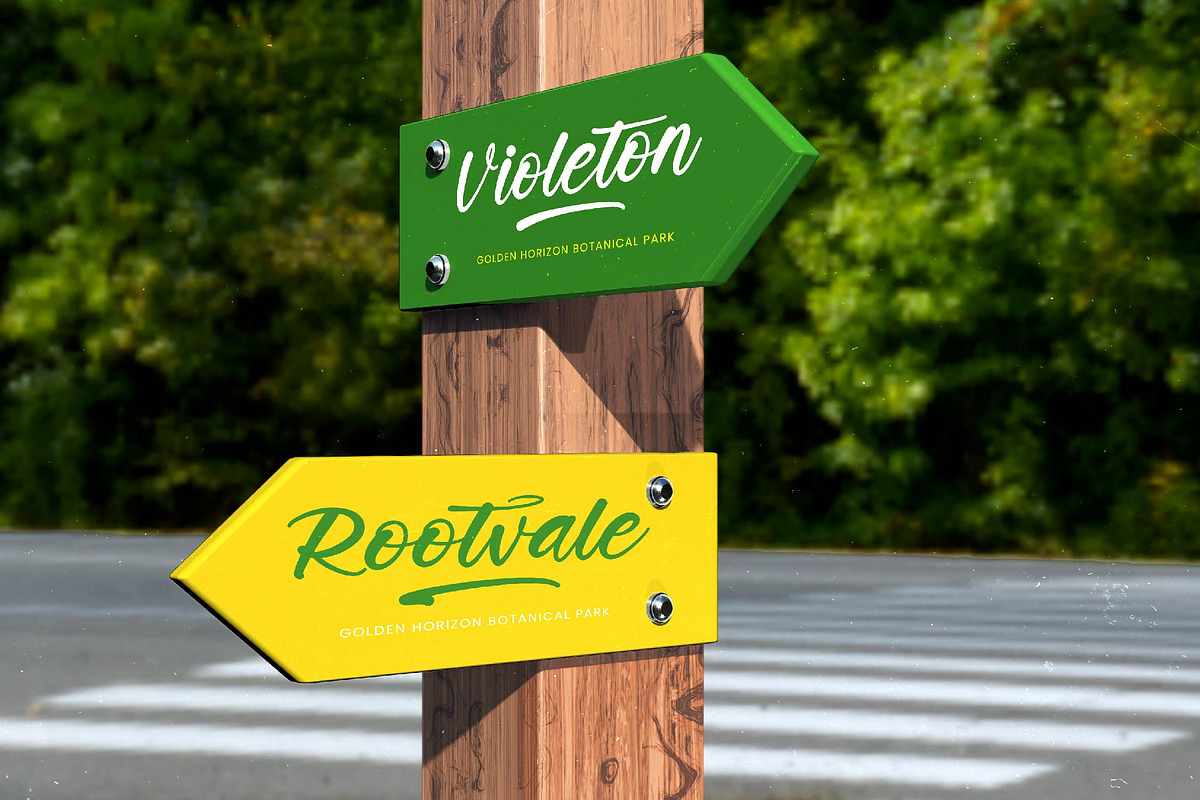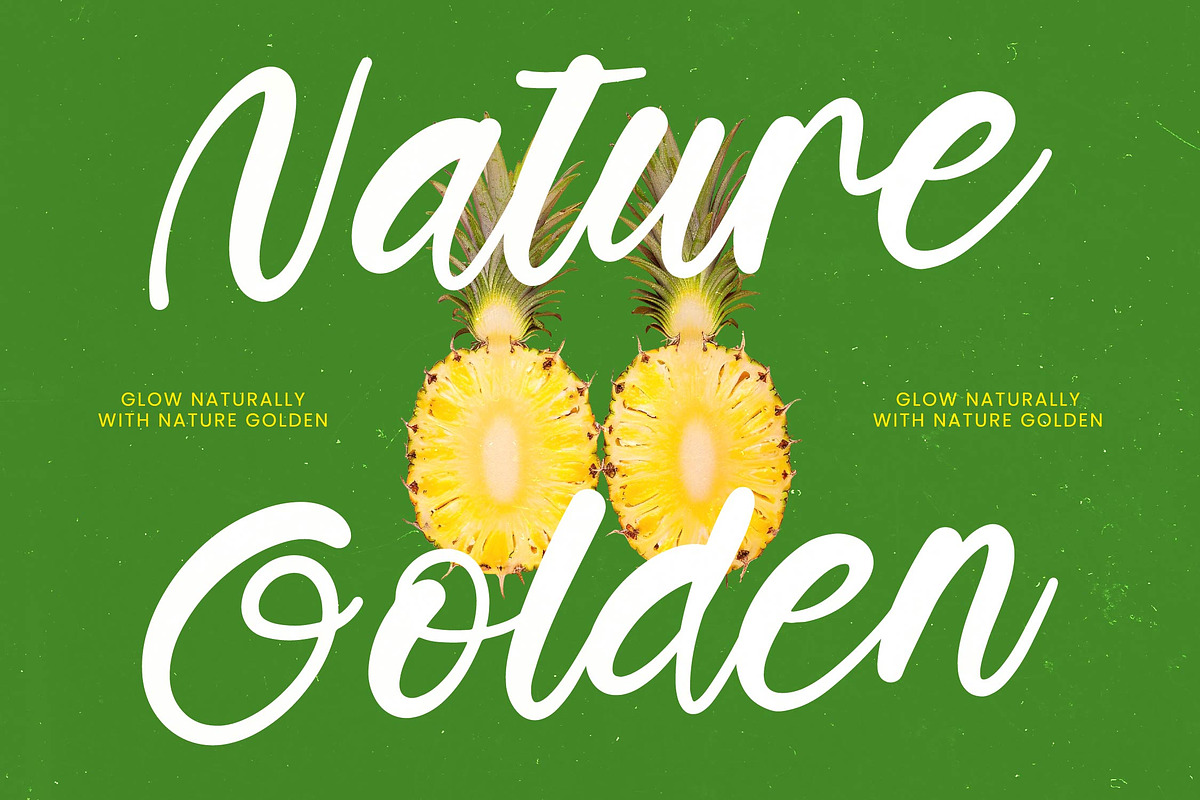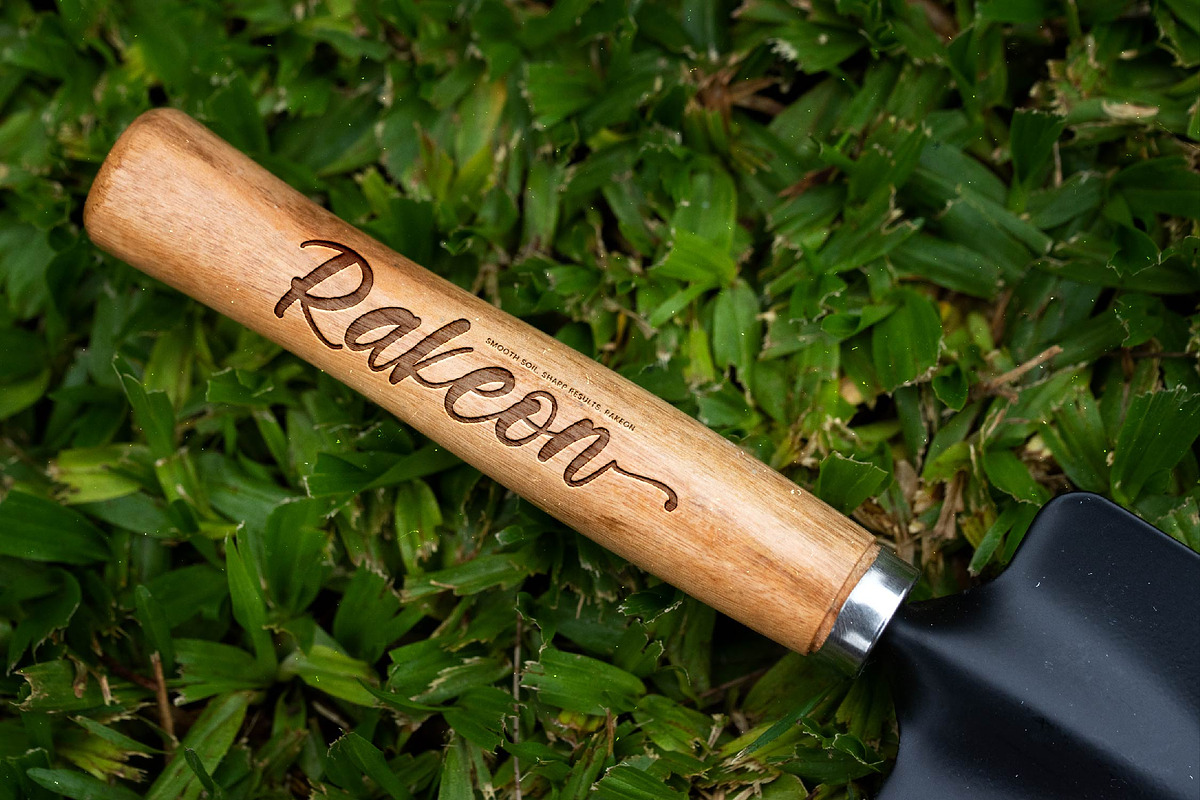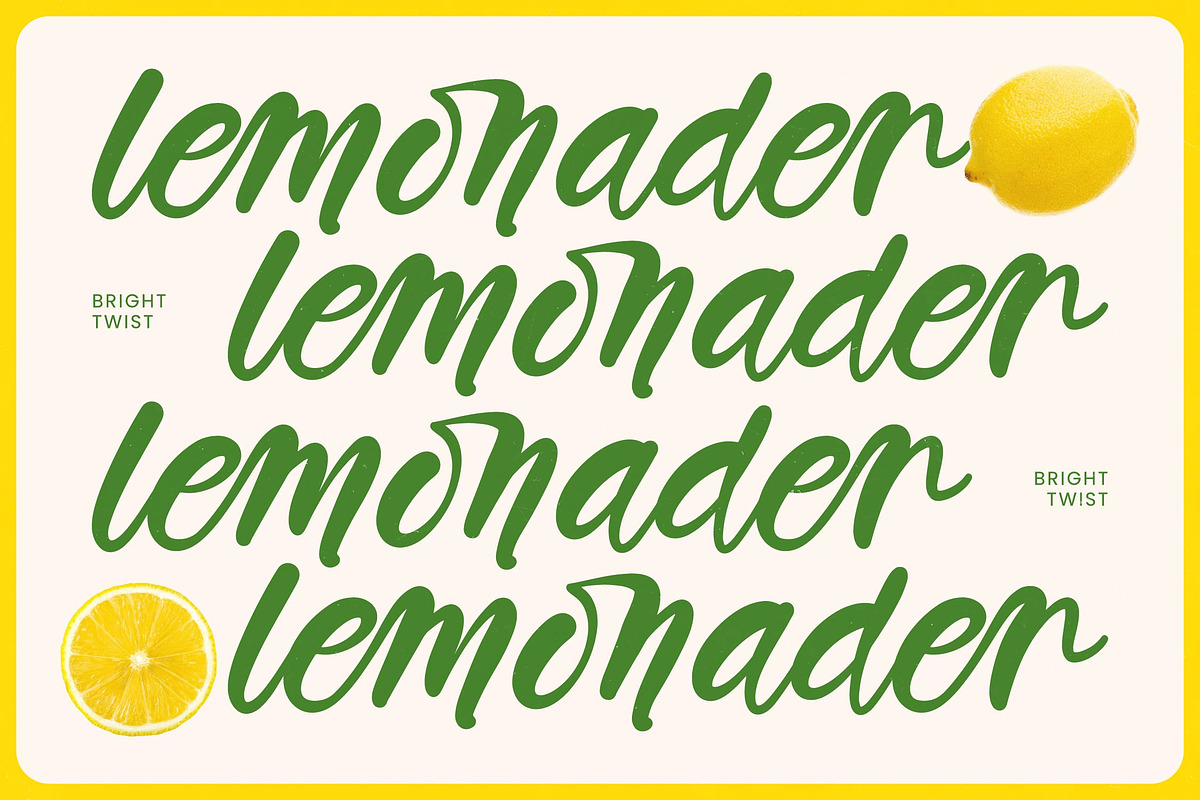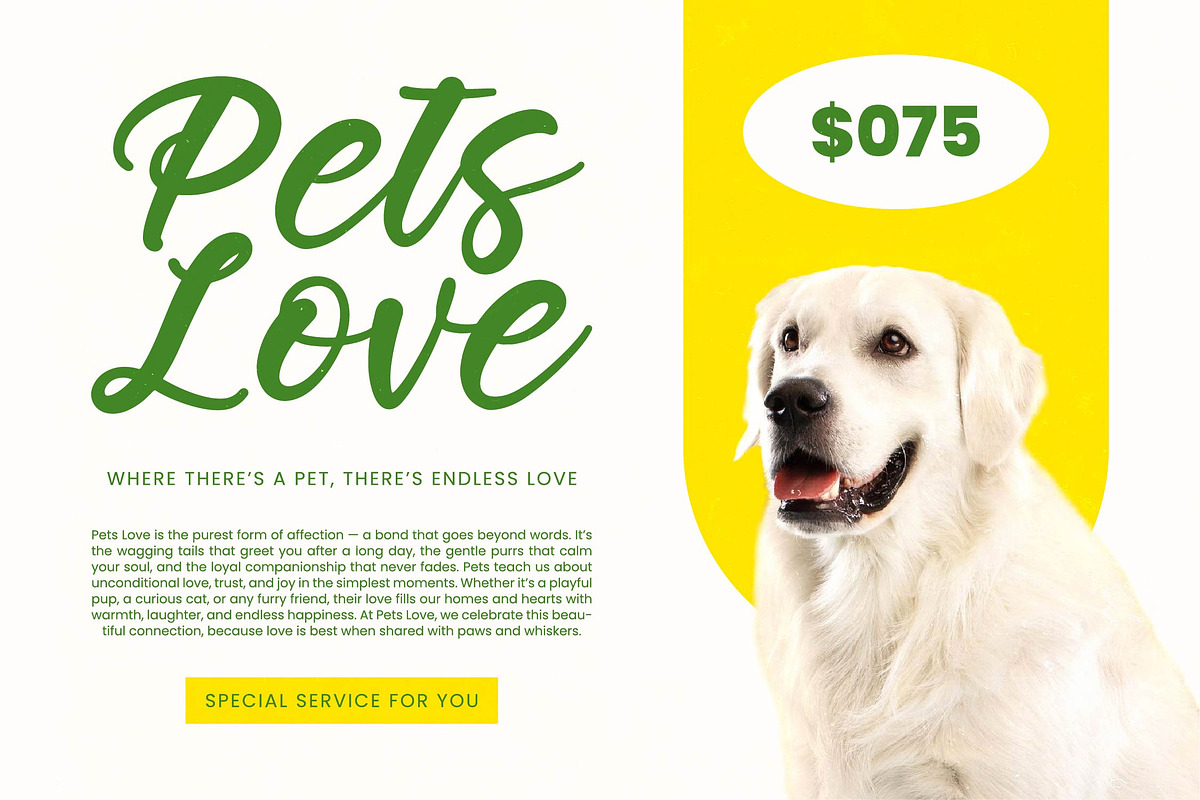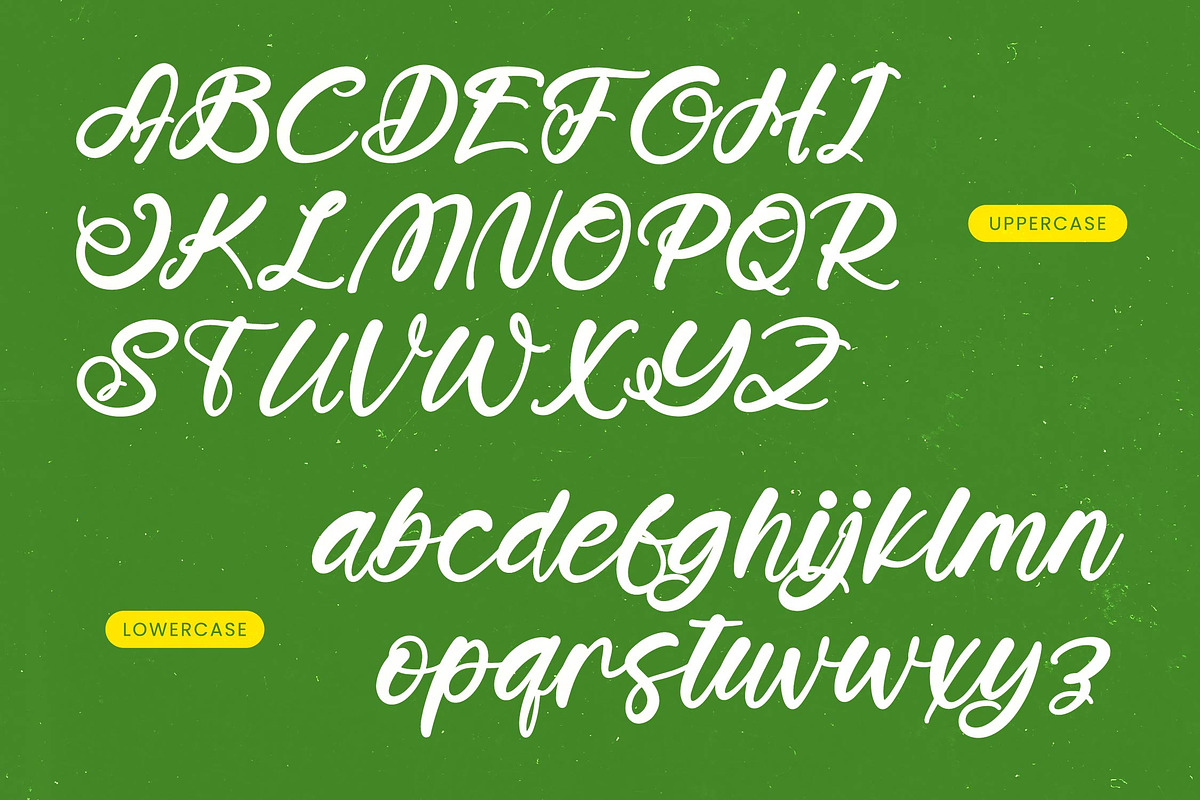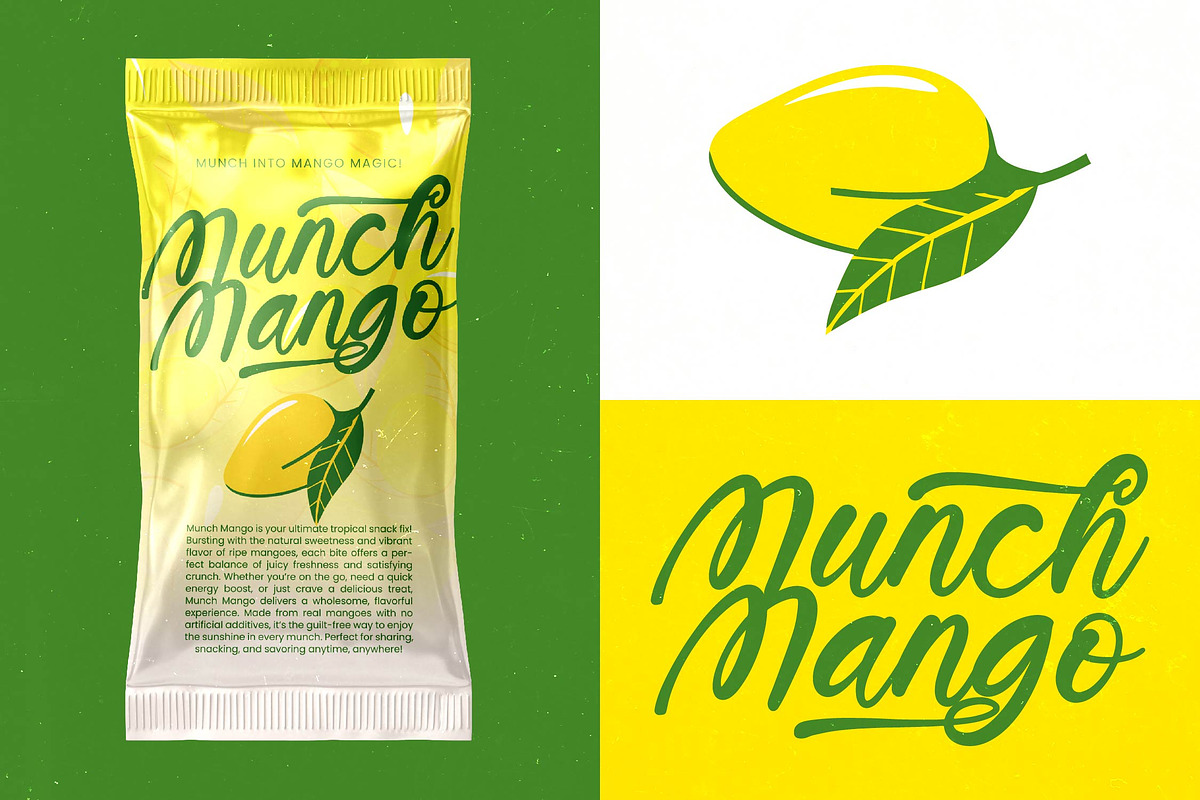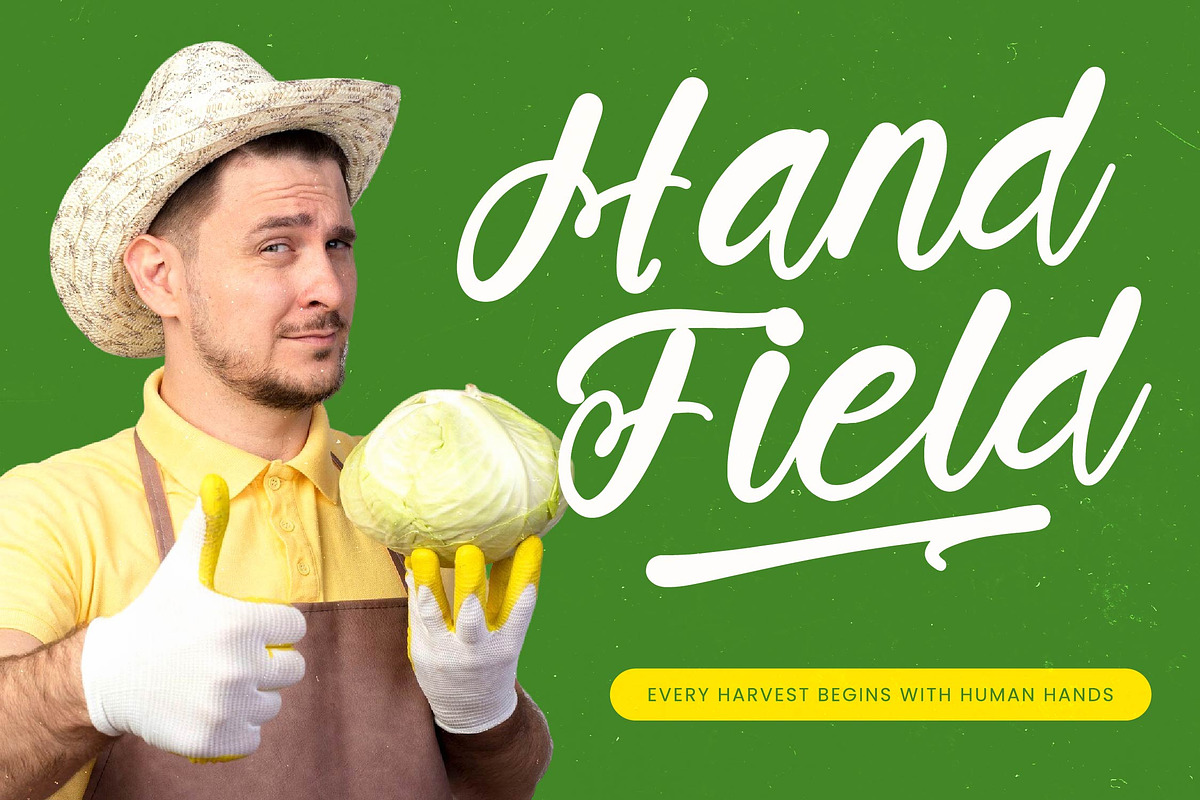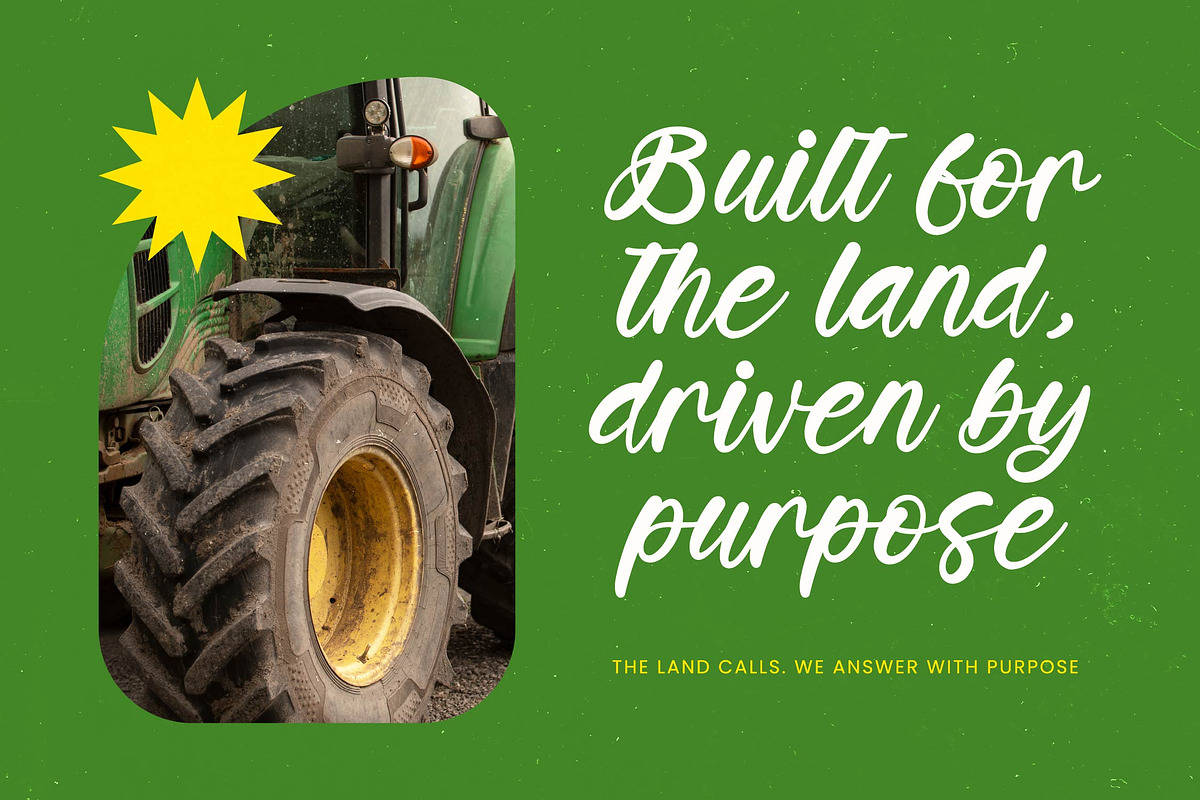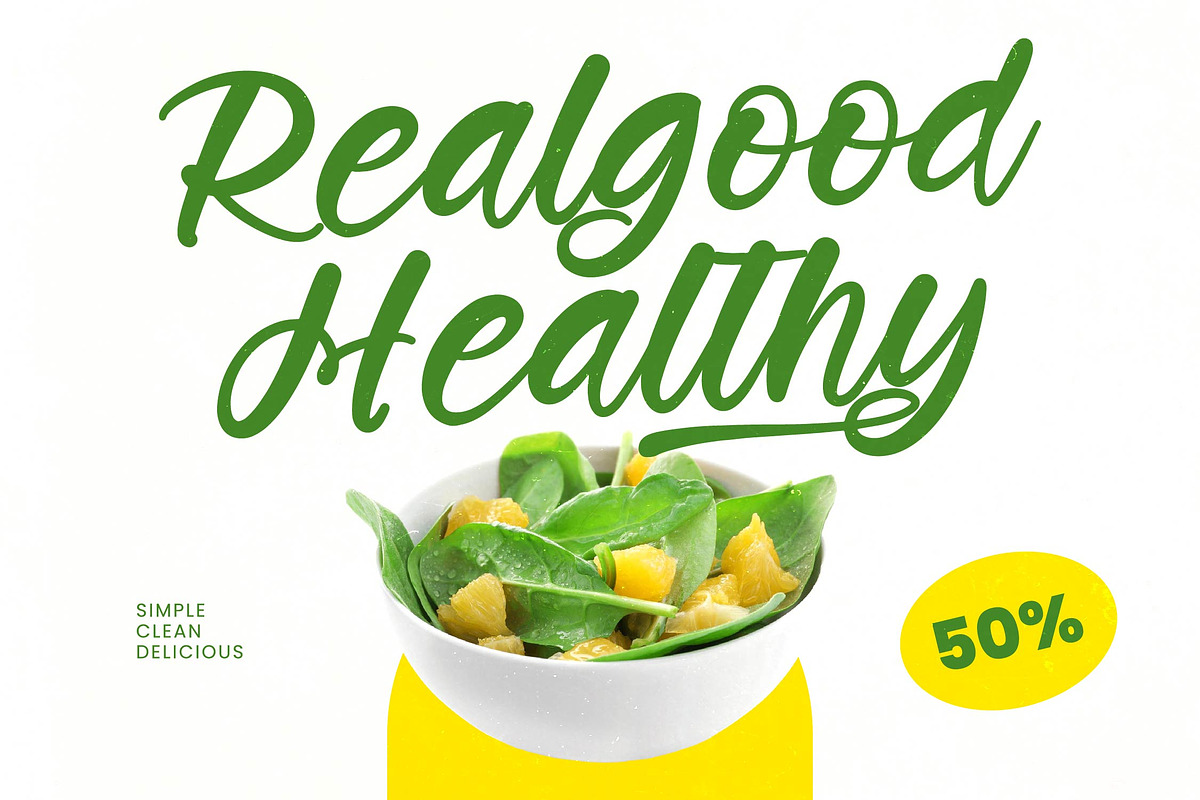
Bumlay Otican Bold Handwritten Font
Bumlay Otican - Bold Handwritten Font , from Stylishtype , Suitable for any projects such as: logos, branding projects, homeware designs, product packaging, mugs, quotes, posters, shopping bags, t-shirts, book covers, name card, invitation cards, greeting cards, label, photography, watermark, special events, and all your other luxury and beautiful projects that need a Luxury Script taste.
- 110 Ligature 42 Alternates & 12 Swashes